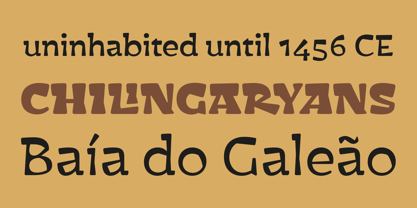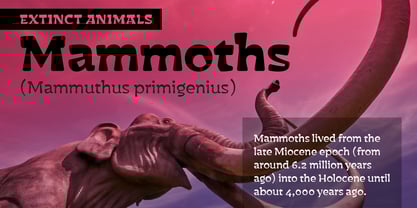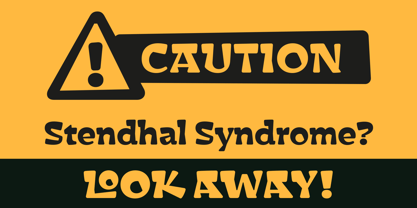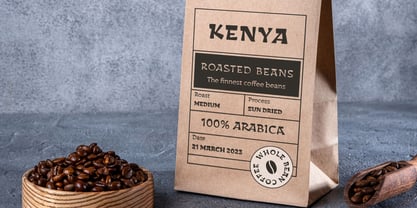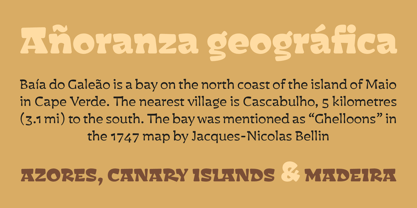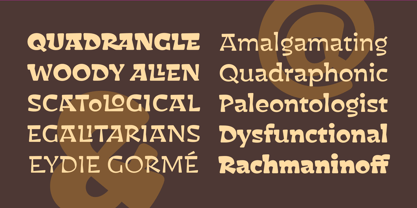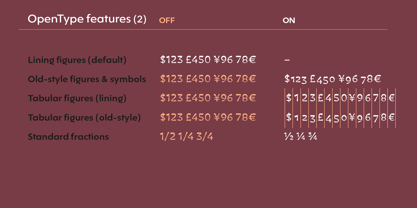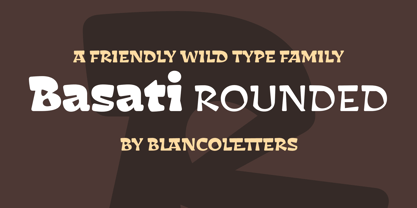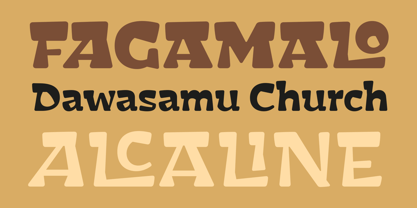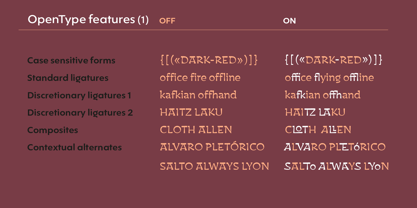
Basati Rounded
by Blancoletters
The Basati Rounded Font Family was designed by Juan Luis Blanco and published by Blancoletters. Basati Rounded contains 6 styles and family package options.
Basati Rounded is the softer, more welcoming sibling of Basati, taming its sharp edges into smooth, friendly curves without losing its bold personality. It retains a wild heart, but now with a friendlier touch. The untamed energy remains, but now it invites rather than intimidates, striking a balance between raw expressiveness and inviting softness.
In Basati Rounded the forms flow with ease, balancing strength and approachability. It is designed for those who want to stand out without pushing away, who seek to be strong yet welcoming. It’s ideal for branding, packaging, posters, and digital content where warmth and boldness must go hand in hand. Basati Rounded talks with a unique and confident voice that speaks with warmth, because being wild doesn’t mean being distant —sometimes, it means being closer than ever.